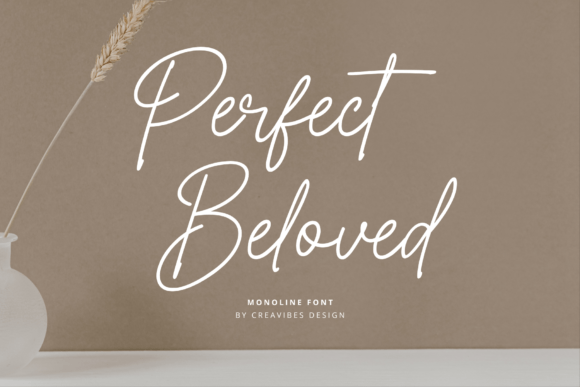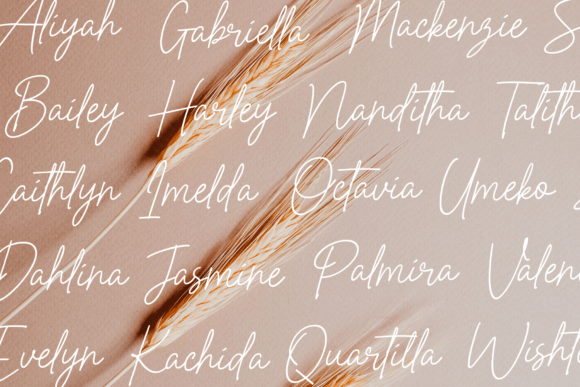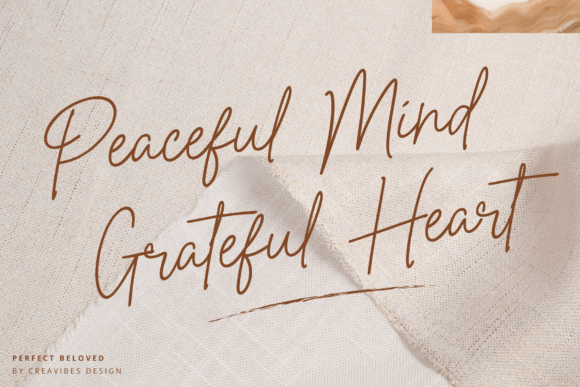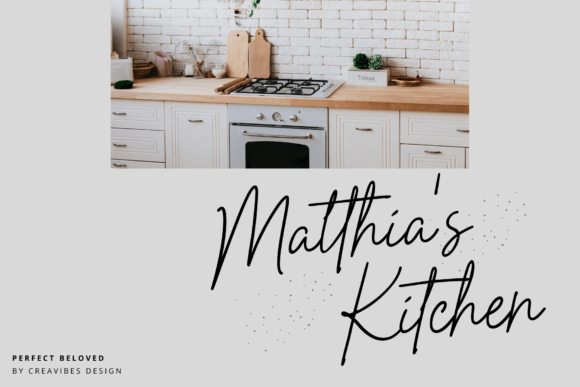
Perfect Beloved Font
About the Perfect Beloved Font
Get ready to be inspired by Perfect Beloved Font, a fresh and dynamic typeface for modern creators. Perfect Beloved – Monoline Font, this font is perfect for branding, invitations, stationery, wedding designs, social media posts, advertisements, product packaging, product designs, labels, photography, watermarks, special events, and more.
Perfect Beloved’s monoline structure lends itself best to headlines, short body text, and display uses such as logos and packaging. Its delicate nature makes it unsuitable for large blocks of text or UI elements where high readability is paramount. Avoid using it for body copy or long-form content.
The font possesses a delicate yet elegant personality. It works well for brands focused on sophistication, minimalism, or handcrafted aesthetics—think artisanal goods, wedding stationery, or high-end beauty products. Pair it with a clean sans-serif like Lato for a modern feel, or a classic serif like Garamond for a more timeless aesthetic. A playful script font could also add a touch of personality depending on the project.
Consider using a bolder sans-serif for supporting text to create visual hierarchy and contrast against Perfect Beloved’s fine lines. Avoid pairing it with other highly decorative or overly ornate fonts to prevent visual clutter.
Perfect Beloved Font Usage Examples
Perfect Beloved Font Example